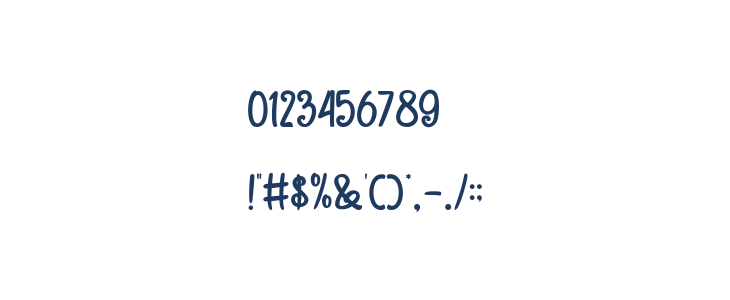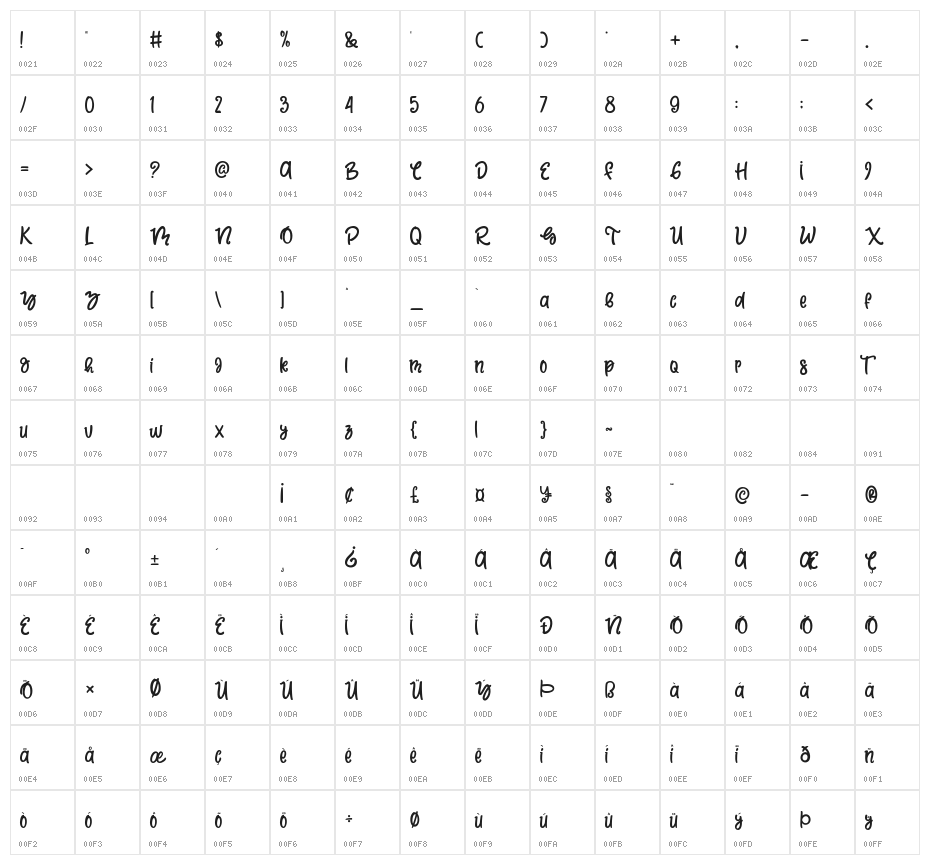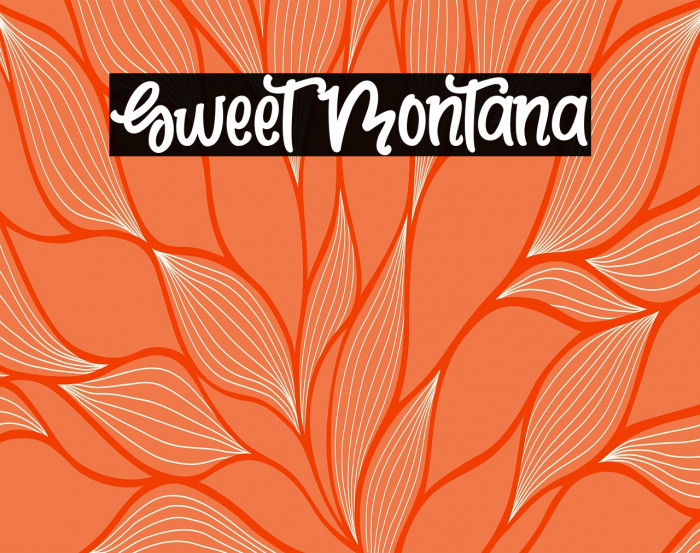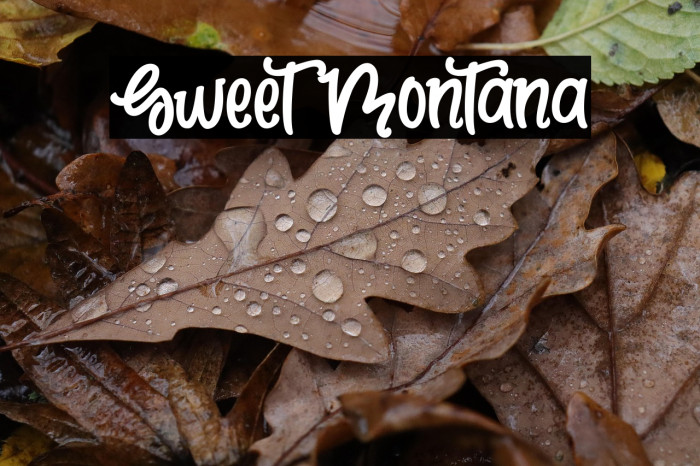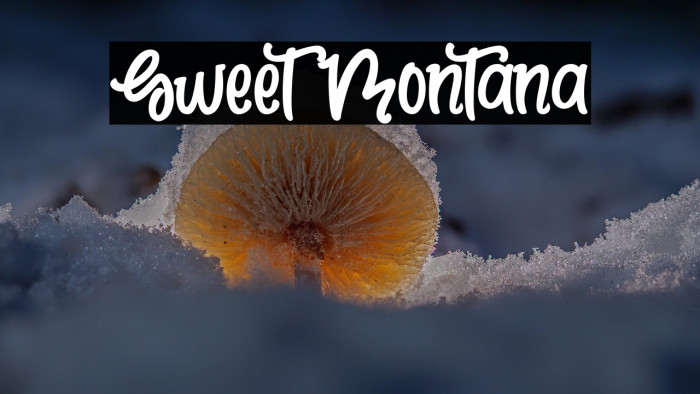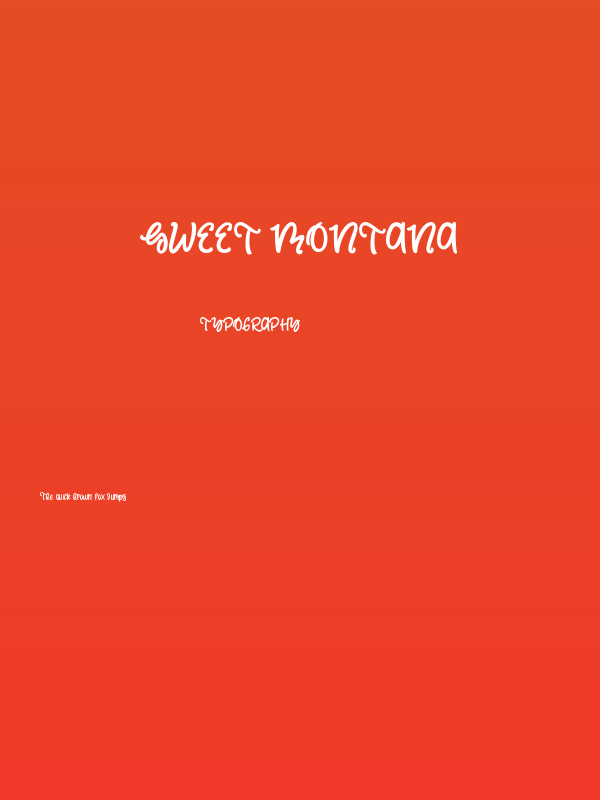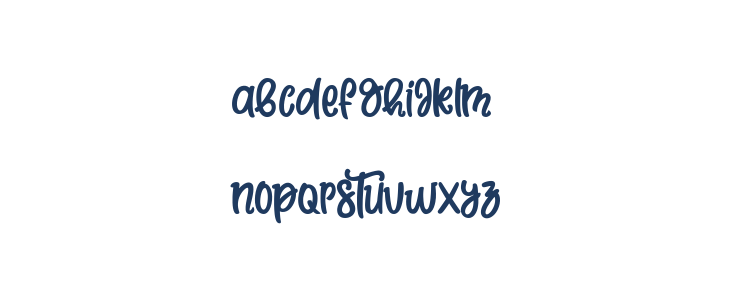
Sweet Montana Font
Sweet Montana Description
This font features a playful and whimsical script style with a hand-drawn appearance. The letters are bold and rounded, giving a friendly and approachable feel. The uppercase and lowercase characters are distinct, with some letters having unique flourishes that add to the font's charm. The numbers and special characters maintain the same playful style, making it versatile for various uses. The overall design is consistent, with a smooth flow between characters, enhancing readability while maintaining its decorative appeal.